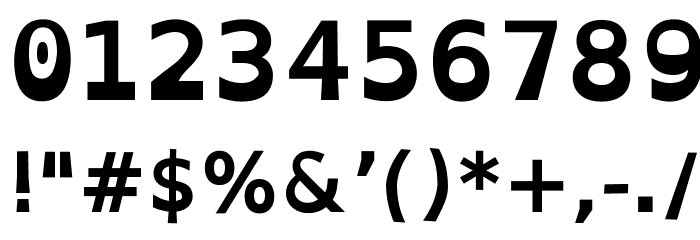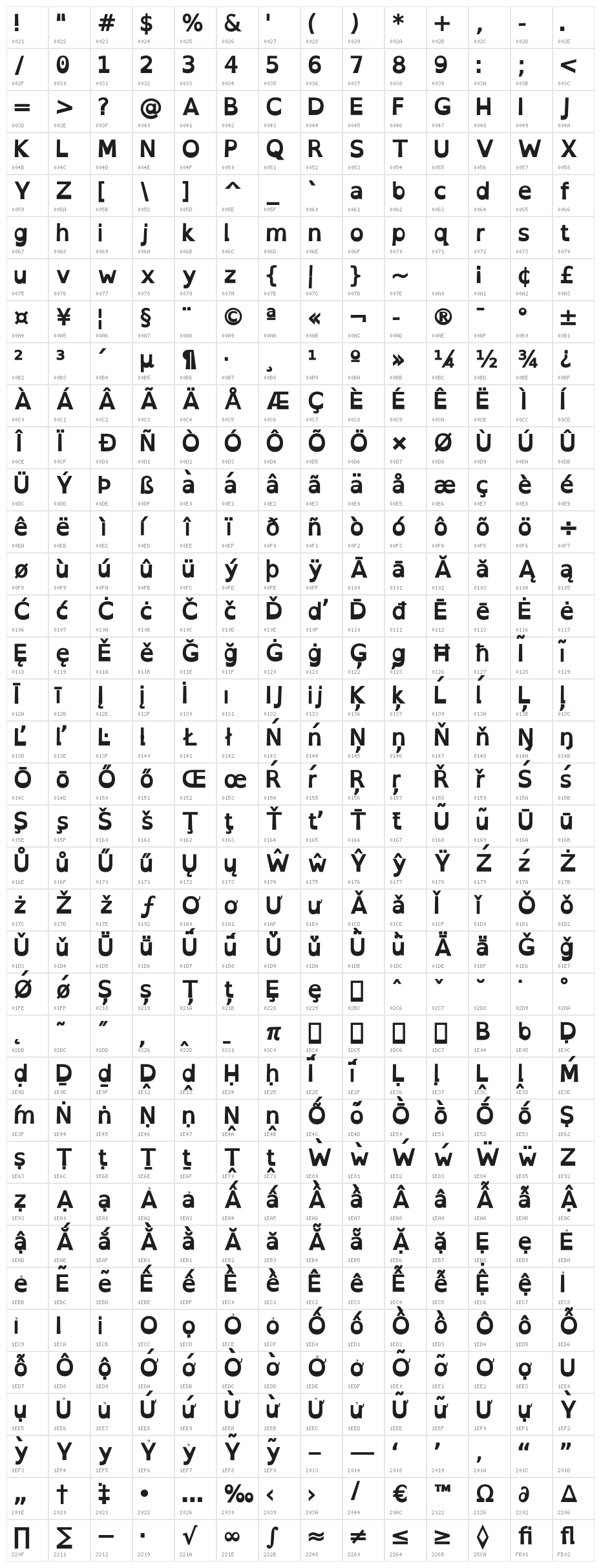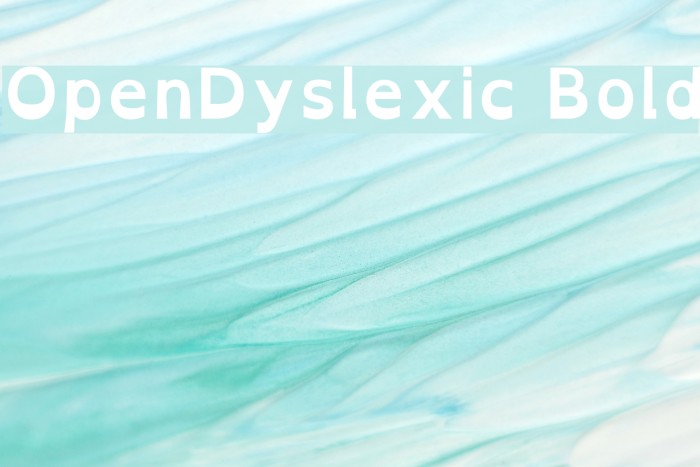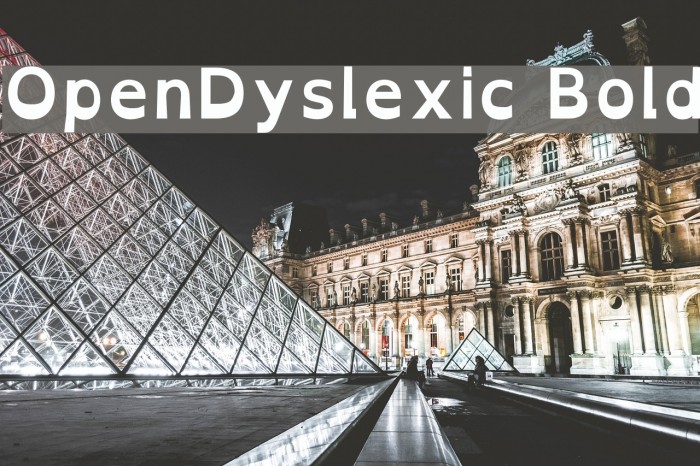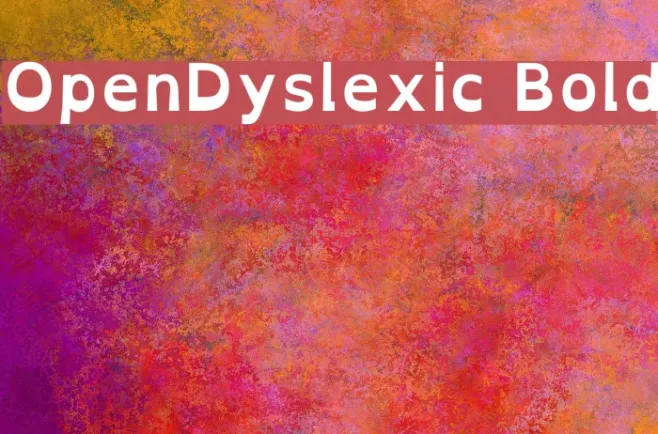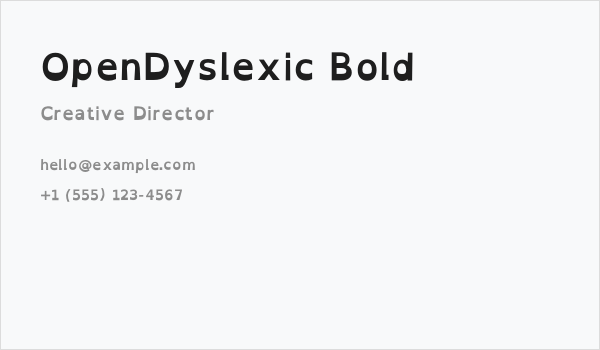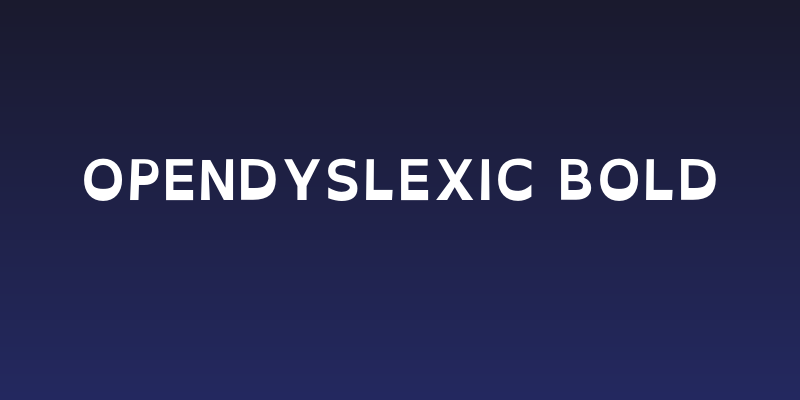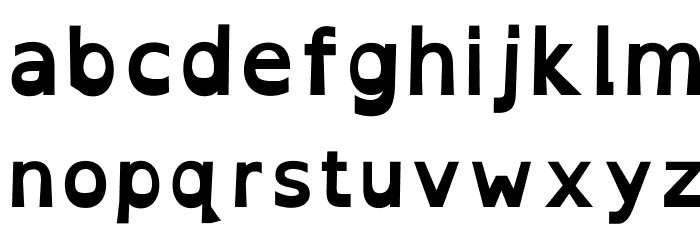
OpenDyslexic Bold Font
OpenDyslexic Bold Description
This font is designed with accessibility in mind, featuring bold, weighted characters that are intended to enhance readability for individuals with dyslexia. The letters have a unique style with heavier bottoms, which helps to anchor the text and reduce letter confusion. The font maintains a clean and straightforward appearance, with a sans-serif design that is both modern and functional. The spacing between characters is slightly wider than average, contributing to improved readability. The numbers and special characters are consistent with the overall style, ensuring uniformity across different types of content.
| Use Case | Body text, Educational materials, Accessible design |
| Proposed Projects | Ideal for educational materials, accessible web design, and any project aiming to enhance readability for individuals with dyslexia. |